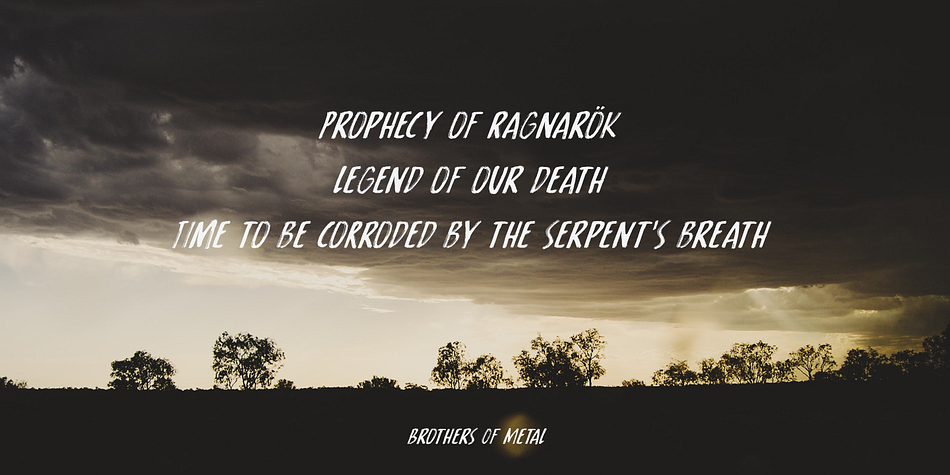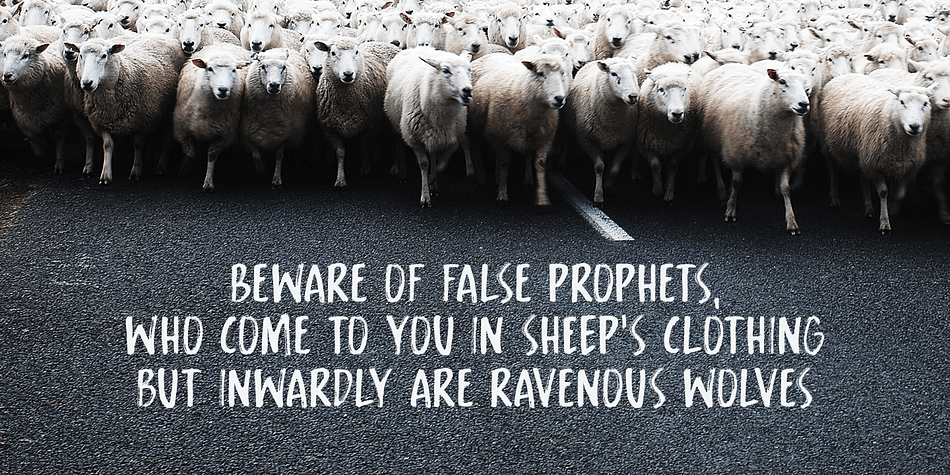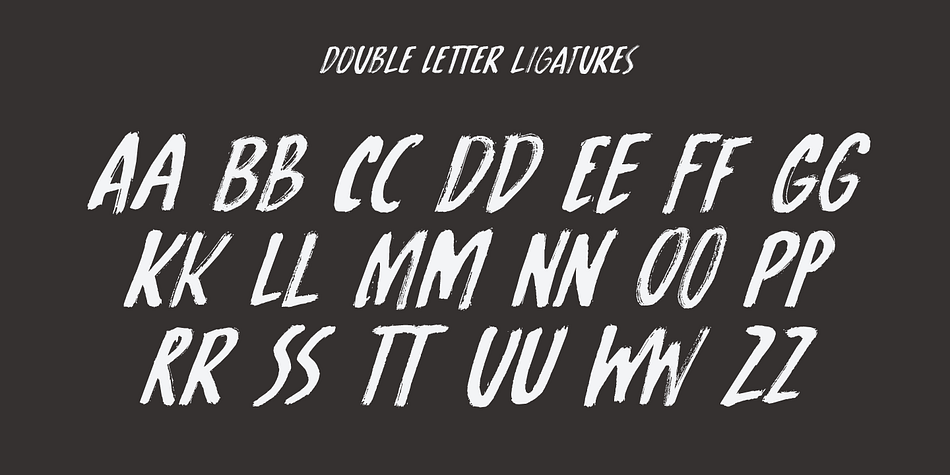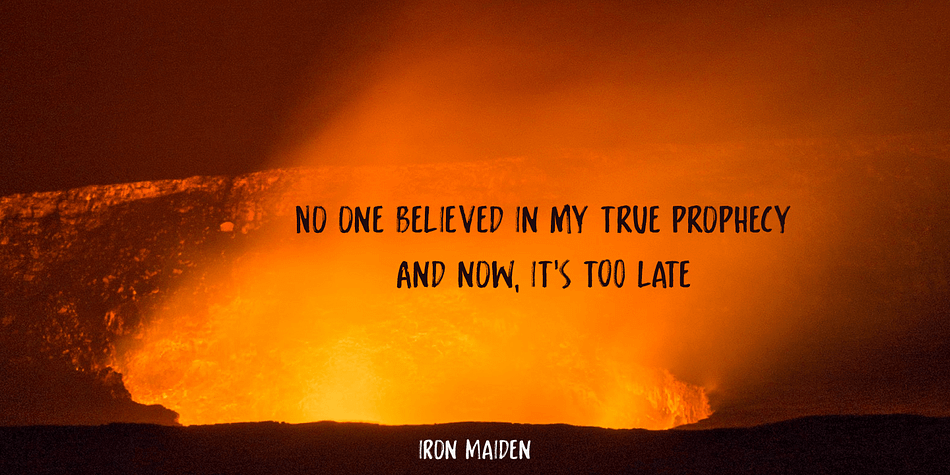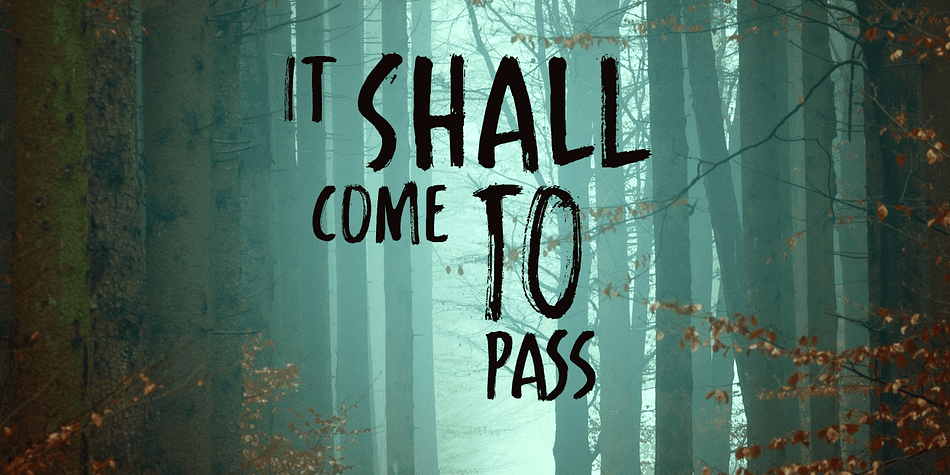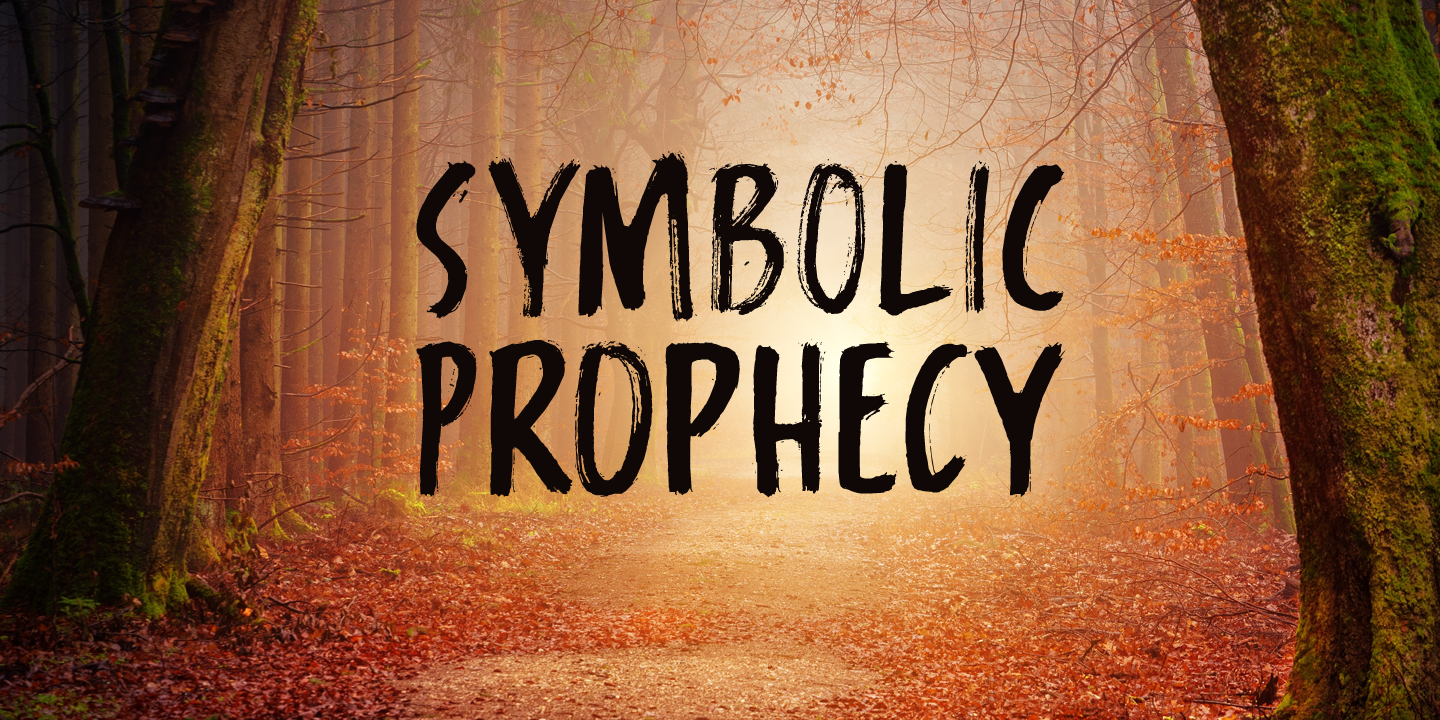
Designed by David Kerkhoff, Symbolic Prophecy is a brush display and grunge font family. This typeface has two styles and was published by Hanoded.
I am not one for prophecies of impending disaster and all that, don’t worry! I just liked the name and it seems to suit this handmade font quite well.
Symbolic Prophecy was made with a broken bamboo satay skewer and Chinese ink. I quite like using broken satay skewers, as they give a fantastic ‘random’ effect.
Use Symbolic Prophecy for your posters, your product packaging and, just maybe, a sign about the end of times… ;-)